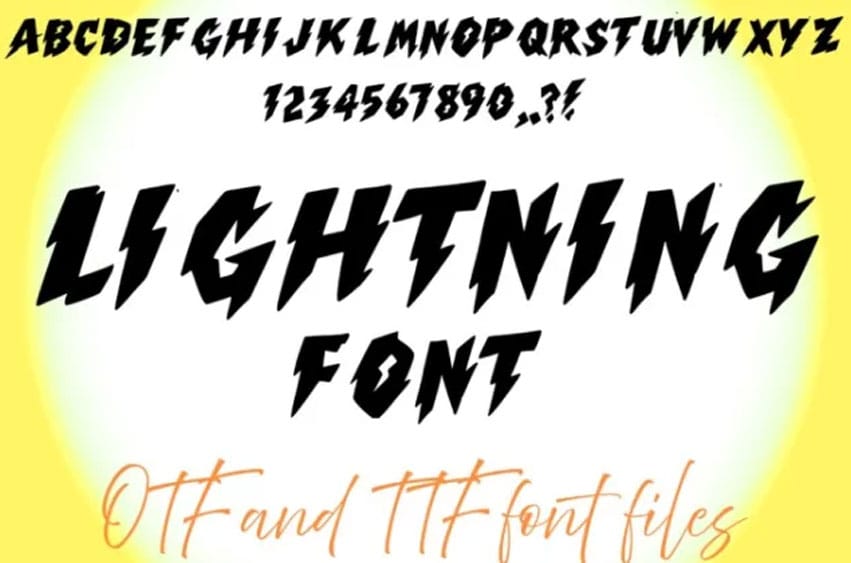
Lightning Font is a bold, electrifying display typeface charged with energy.
Featuring sharp, jagged strokes and lightning bolt details, this font is perfect for rock band logos, comic titles, energy drinks, and anything that needs an extra jolt of power. It’s loud, fast, and striking—just like a bolt of lightning!